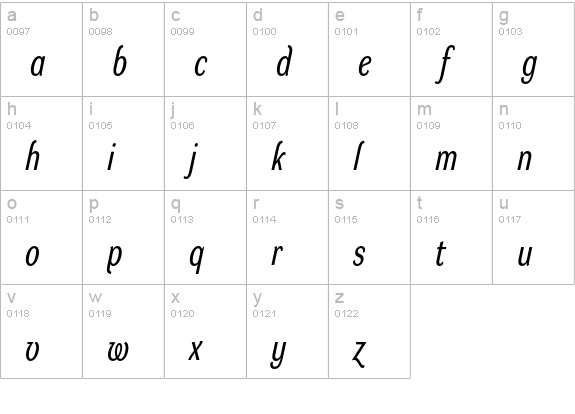
Dynamo Italic R C is a distinctive, italic variant in the Dynamo typeface family \xE2\x80\x94 well suited to design and typography projects.
Dynamo Italic R C font is a versatile and sophisticated typeface that exudes elegance and modernity. Its sleek and stylish italic design adds a touch of flair to any project, making it perfect for both professional and creative applications. This font features clean lines and a contemporary aesthetic that is sure to make a statement. Whether you're designing a website, creating a logo, or working on a branding project, Dynamo Italic R C font is a great choice for adding a touch of sophistication to your work. Best of all, Dynamo Italic R C font is free to download at FontsMarket.com, making it accessible to everyone looking to elevate their designs with a touch of elegance. Don't miss out on the opportunity to enhance your projects with this stunning and unique font. Download Dynamo Italic R C font today and take your design to the next level.